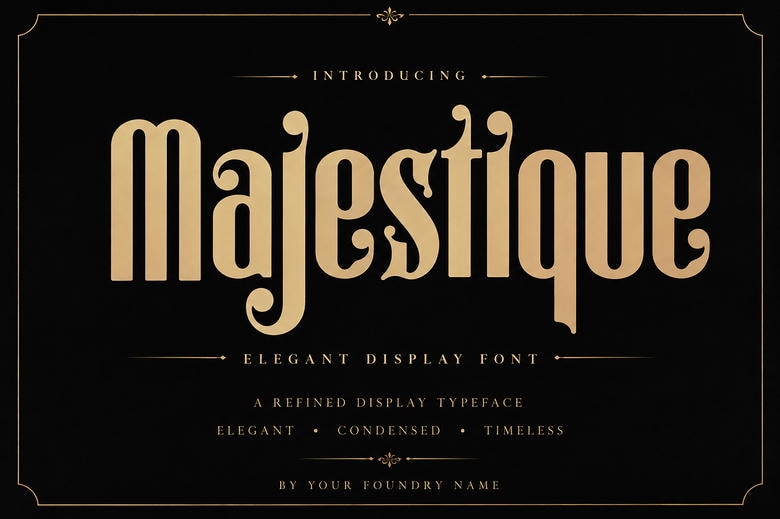
Majestique Font
Majestique is a refined condensed display font that brings a sense of timeless luxury and vintage sophistication. With its tall vertical proportions, elegant ball terminals, and graceful serif curves, this typeface adds a touch of high-end editorial style to your designs.
Majestique works well for luxury brand logos, beauty packaging, fashion magazine headers, wedding stationery, wine labels, and boutique signage. It gives your typography a subtle sense of elegance.
Majestique Display Font